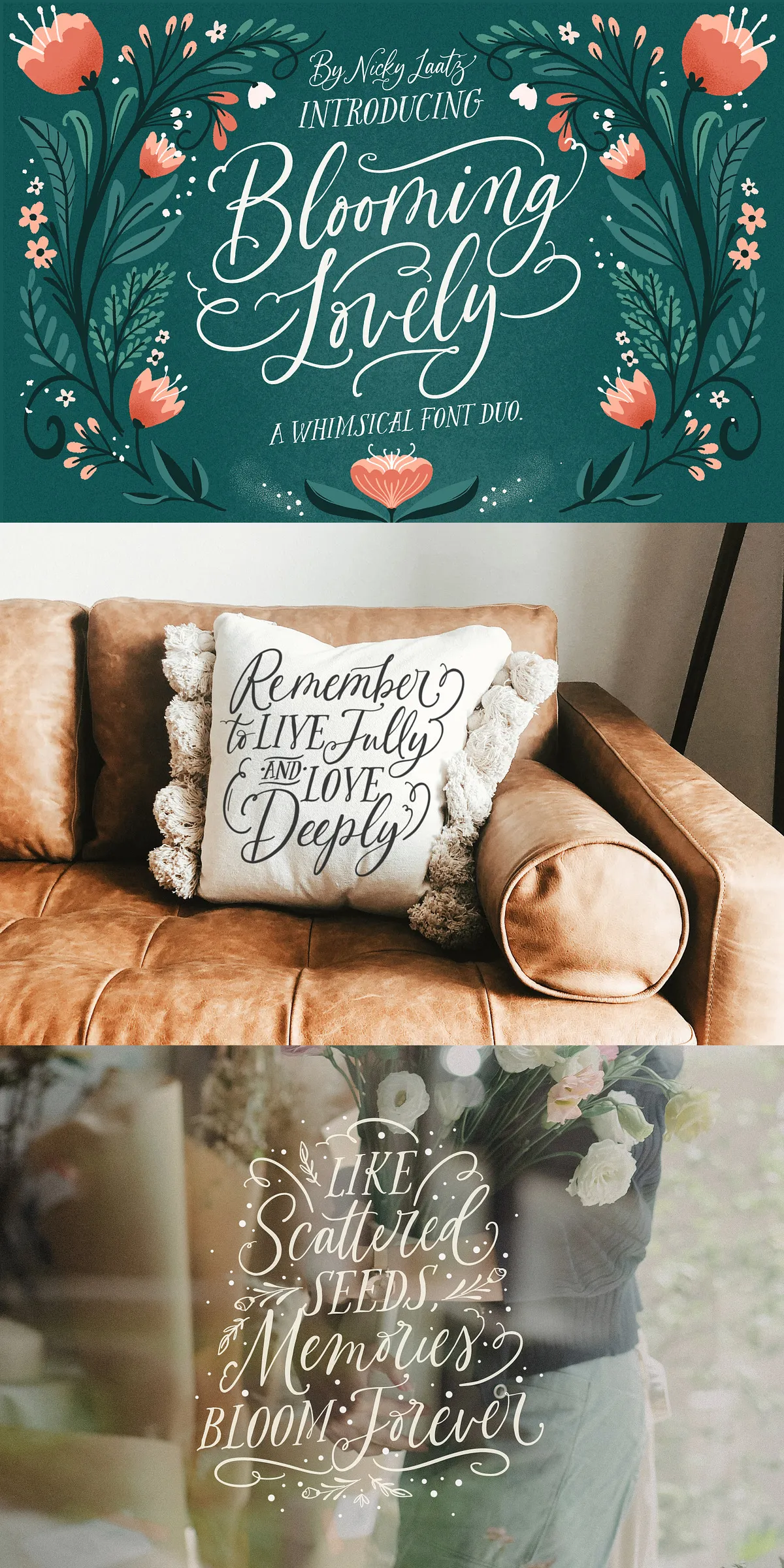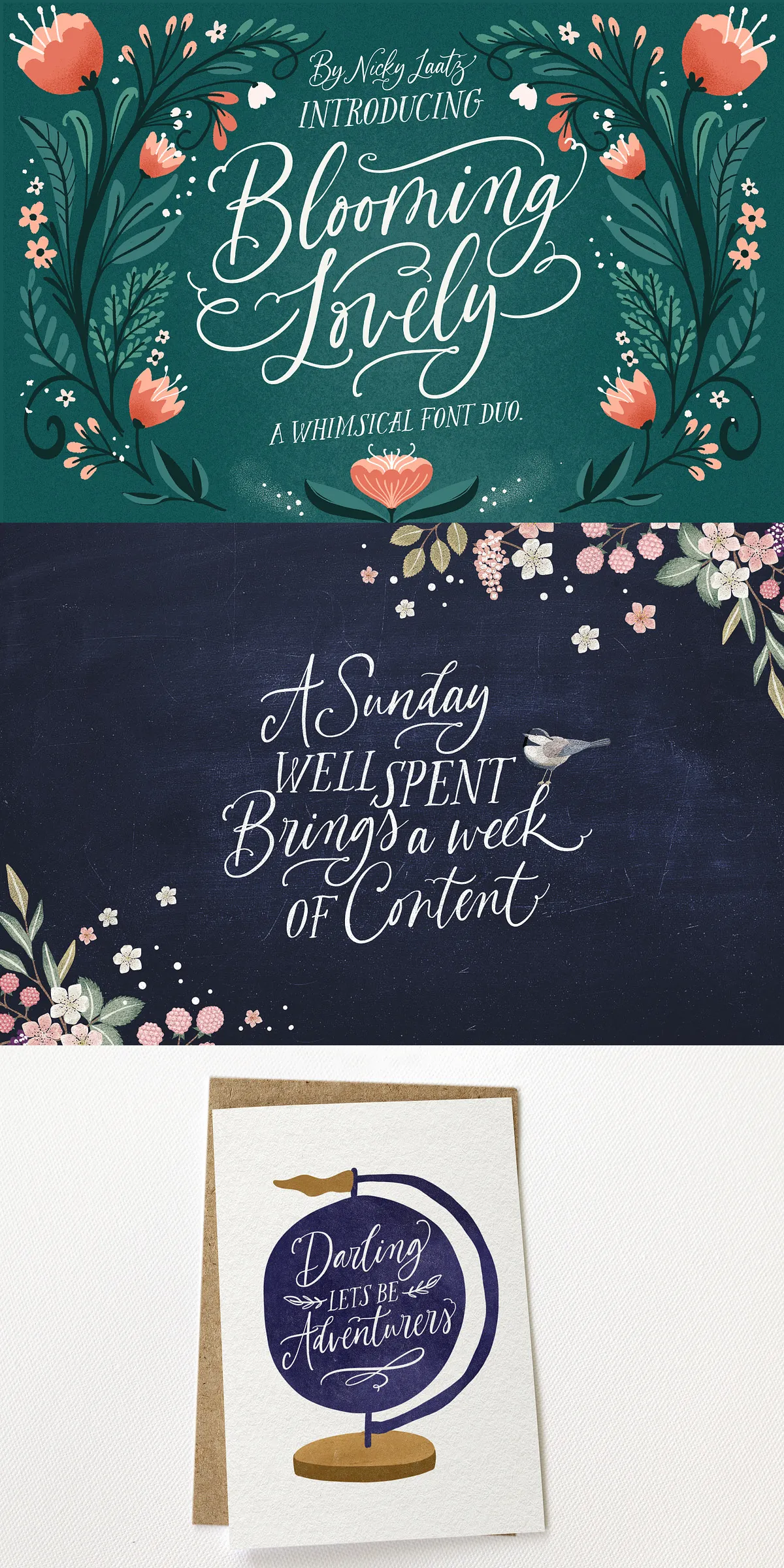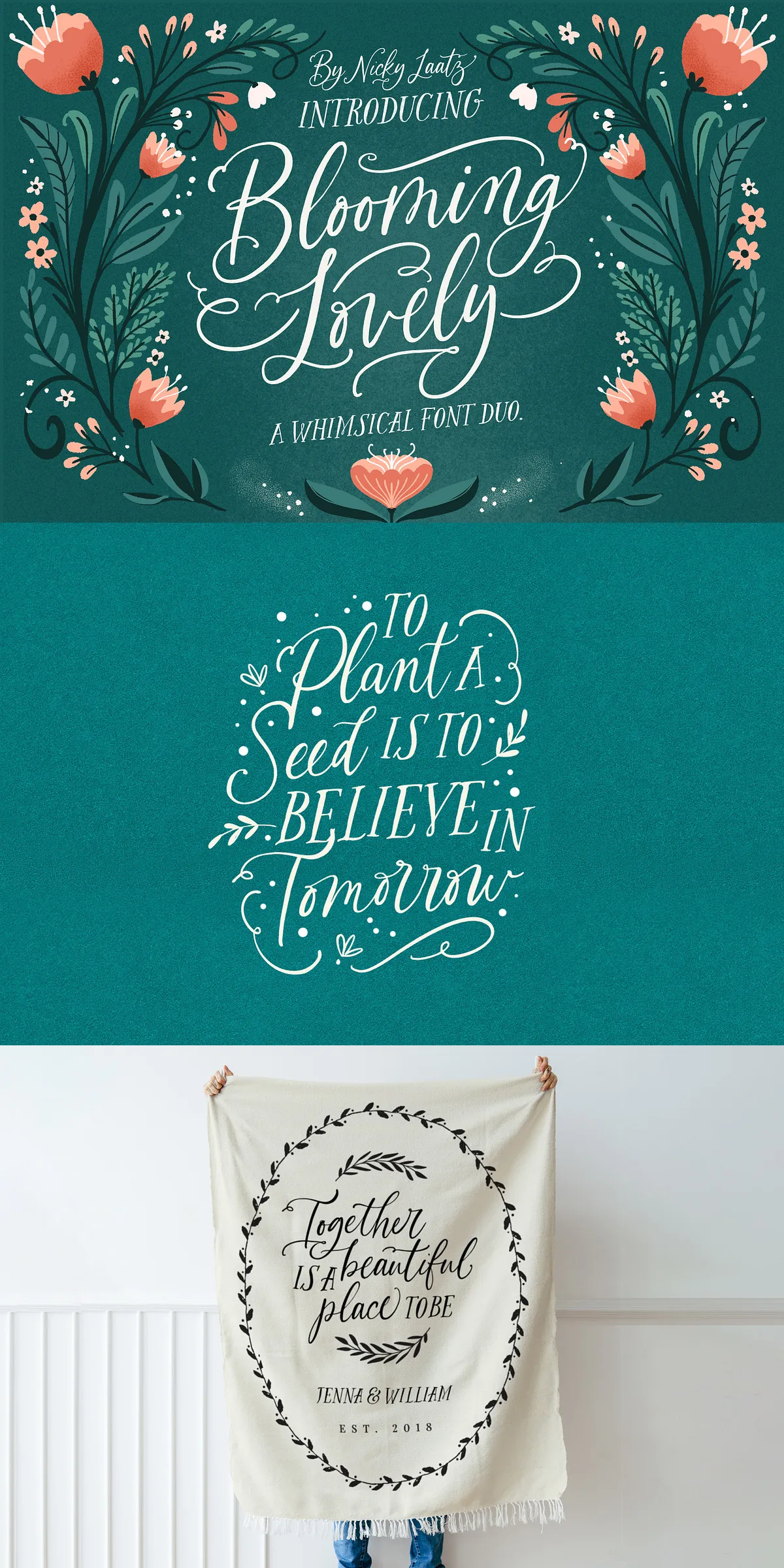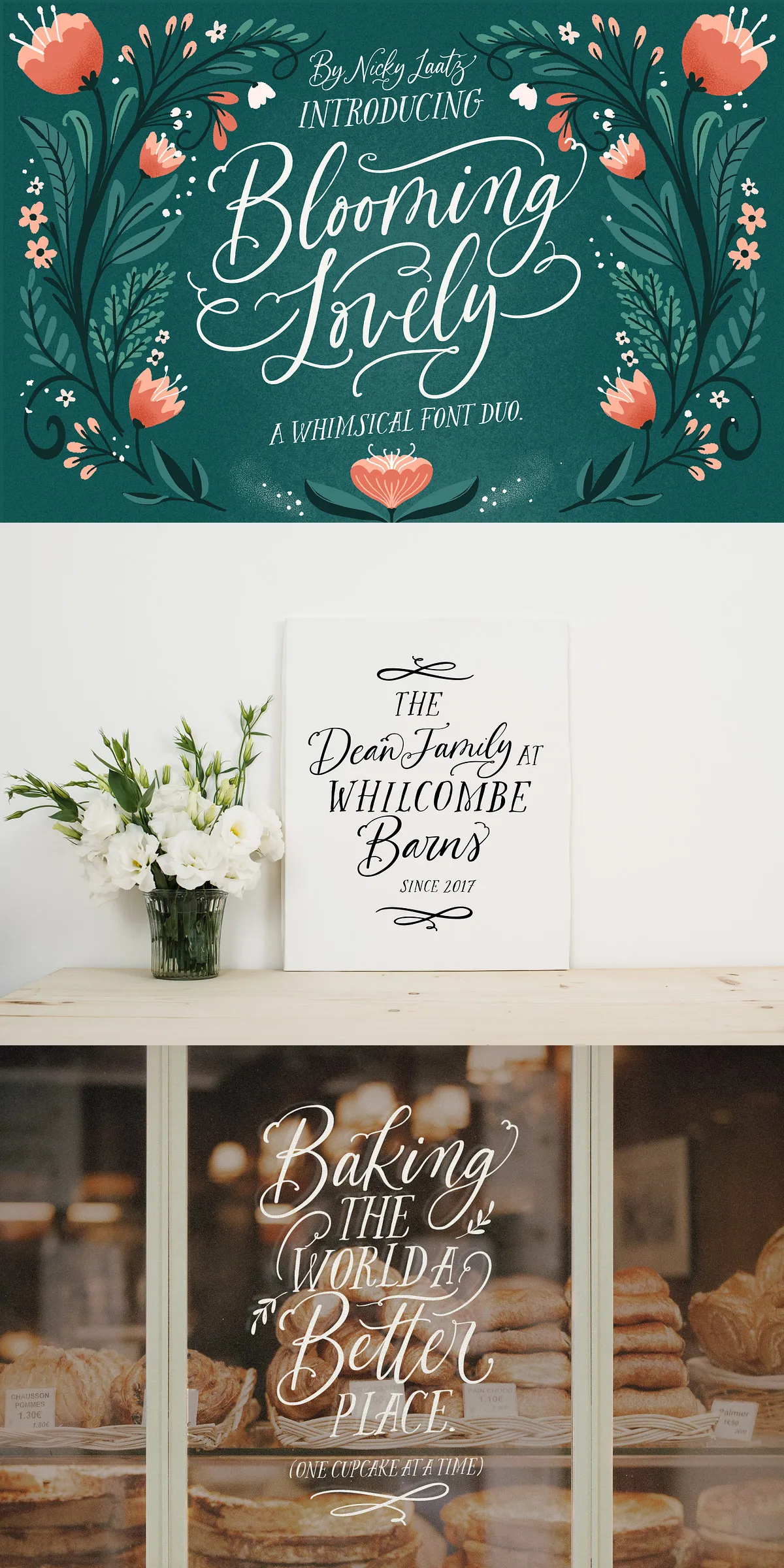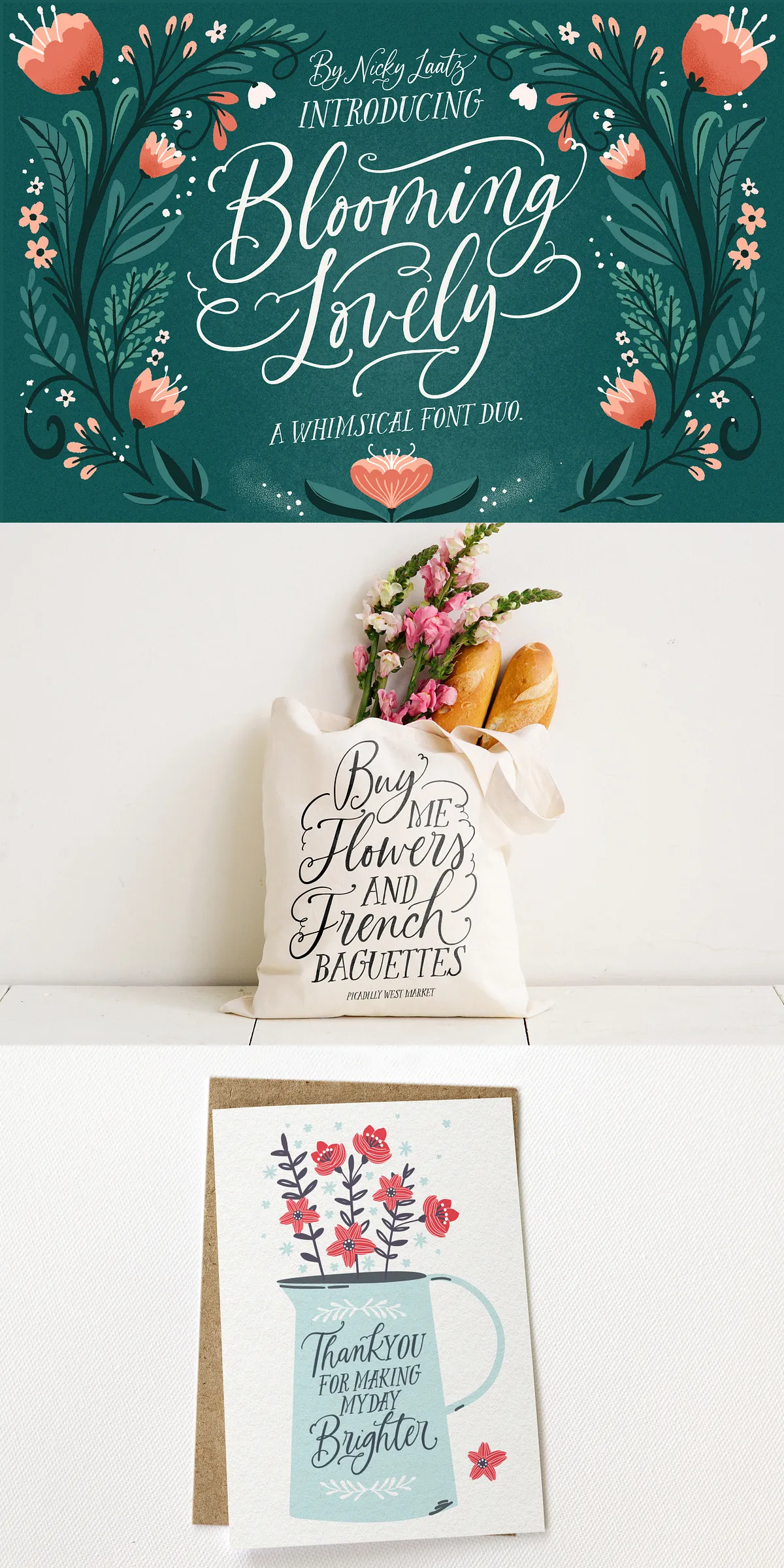
The Blooming Lovely Font Duo brings together the playful beauty of whimsical handwritten calligraphy and the refined structure of an all caps serif. This sophisticated pairing offers designers a versatile toolkit to create captivating typography that balances personality and elegance. Perfect for varied design needs, this duo adapts seamlessly from casual to formal projects, giving your work a distinctive and professional appearance.
A Dynamic Font Duo for Creative Freedom
This font duo unlocks vast creative potential by featuring 167 OpenType stylish alternate letters and ligatures. These allow you to customize and manipulate your type design actively, making every project unique and tailored to your vision. Whether you are aiming for a delicate, playful look or a bold statement, The Blooming Lovely Font Duo gives you complete control over your typography styles.
Bonus Ornament Font for Enhanced Design
Included with this duo is a charming bonus ornament font that contains 68 flourishes, frills, and foliage elements. These decorative accents enhance your text designs by filling open spaces, adding flair, and elevating the overall visual impact. Use them to highlight key areas, create borders, or enrich your layout with intricate details that complement the duo’s main fonts.
Authentic Handwritten Craftsmanship
Crafted from genuine handwritten calligraphy, the script font captures the natural imperfections and wobbly edges of penmanship. This intentional unrefined style adds authenticity and character, making each letter feel uniquely human and warm. Due to its textured edges, this font duo is best suited for digital and print projects rather than cutting machine applications, especially in smaller sizes where detail may be lost.
The font duo currently supports English language characters only. This focus ensures clean, readable typography for a wide range of English text applications, from invitations and branding to social media and beyond.
The Blooming Lovely Font Duo is a powerful choice for designers seeking to infuse their projects with charm, versatility, and handcrafted sophistication. Its blend of handwritten softness with serif formality allows it to adapt to diverse design needs, whether for digital communication, print stationery, or branding materials. The extensive stylistic options and ornamental add-ons invite exploration and creativity, making this font duo an invaluable resource for professionals and amateurs alike.